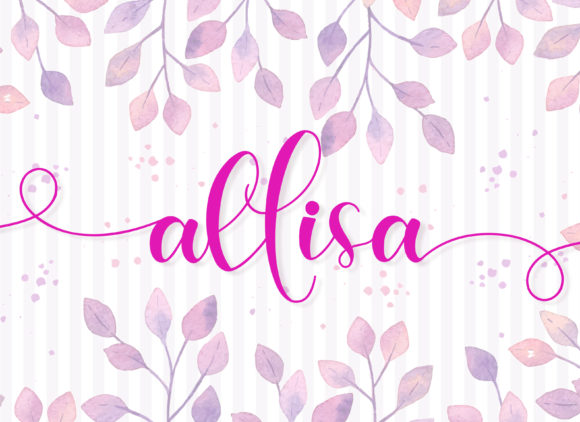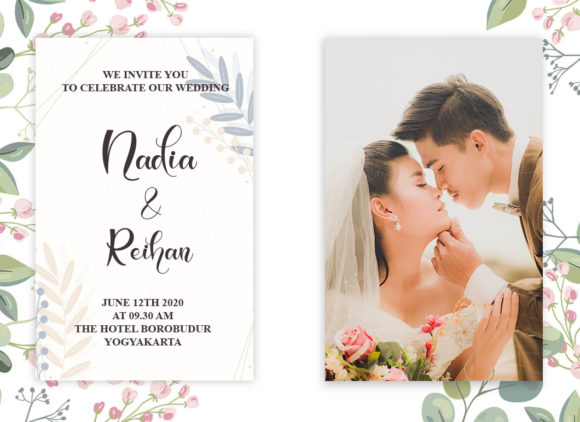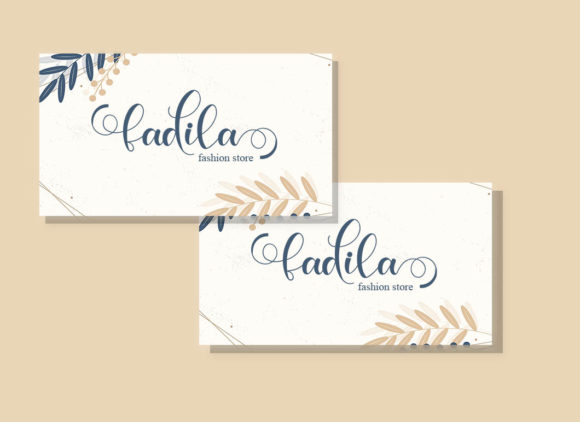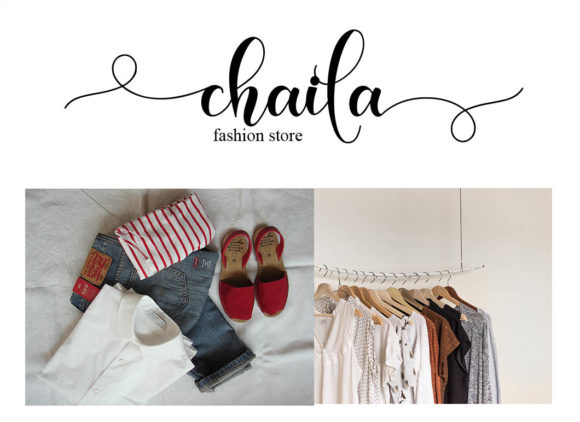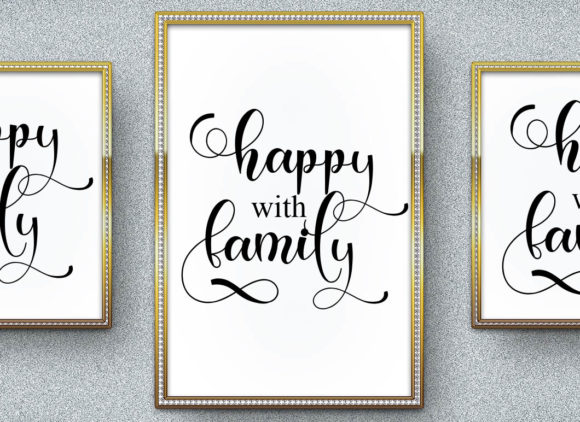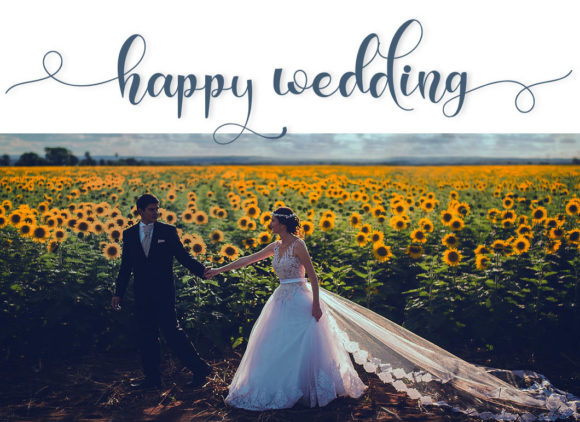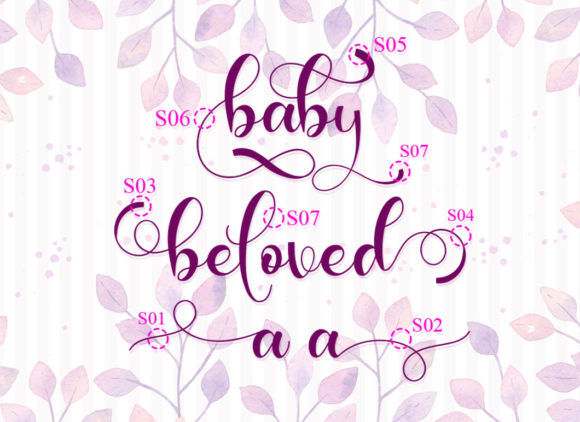
Allisa Font
About Allisa Font
Allisa is a sweet handwritten font. It is PUA encoded which means you can access all of the glyphs and swashes with ease! It features a varying baseline, smooth lines, gorgeous glyphs and stunning alternates.Fall in love with its authentic feel and use it to create gorgeous wedding invitations, beautiful stationary art, eye-catching social media posts, and cute greeting cards.